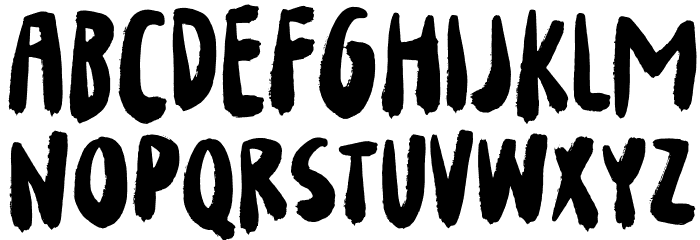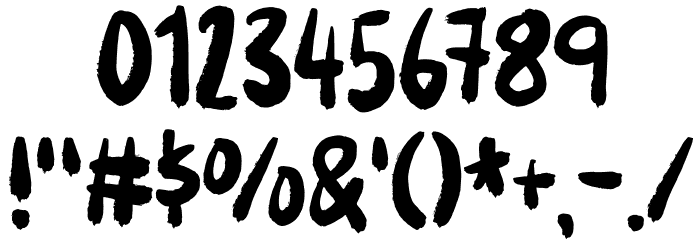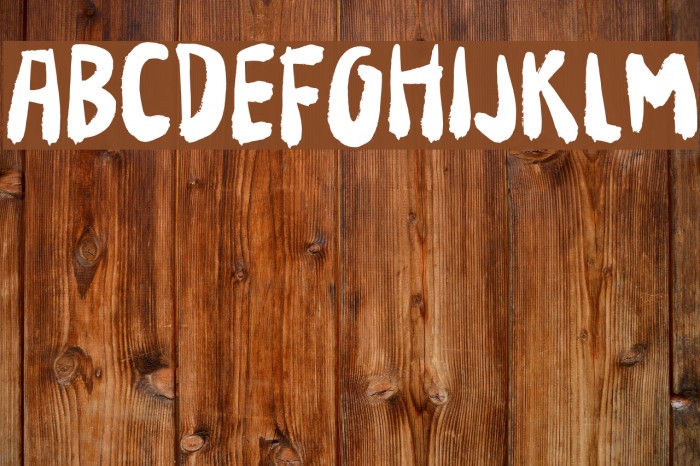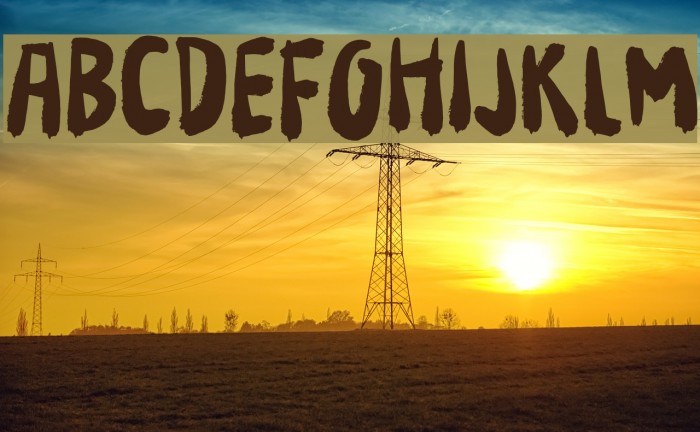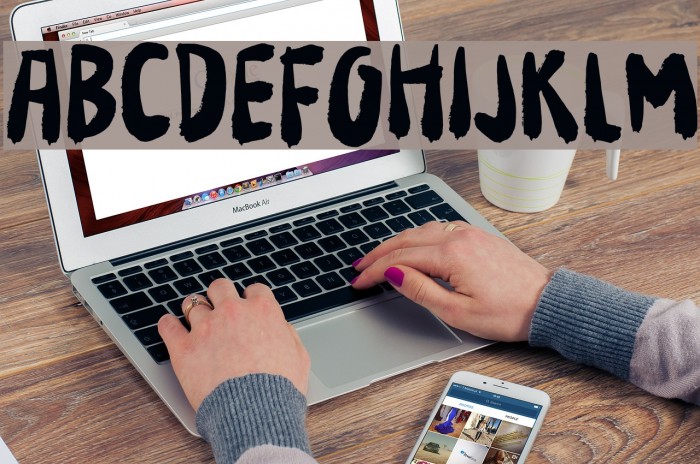
Your Flames DEMO Regular Font
This font features a bold and expressive style with a hand-painted appearance. The characters are thick and slightly irregular, giving a dynamic and energetic feel. The uppercase and lowercase letters maintain a consistent weight, while the numbers and special characters follow the same bold aesthetic. The strokes are rough and textured, adding a raw and artistic touch. This font is ideal for projects that require a strong visual impact and a creative flair.
A bold, hand-painted font with a dynamic and artistic style.
- Proposed Projects: Ideal for posters, album covers, branding, and creative advertising campaigns.